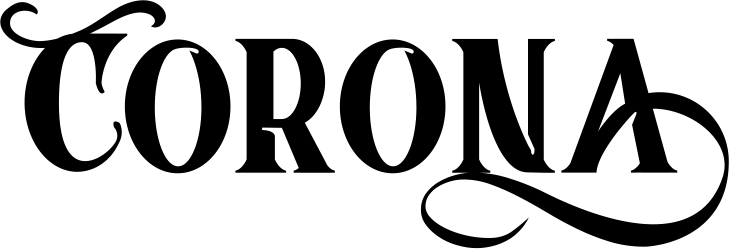
Las locuras del emperador Font
Designed byAhyrton Velasquez Aranda
Get a Mexican font to level up your text-based layouts. Las locuras del emperador comes with decorated letters and fits movies, posters, logos, and so forth. This case doesn’t comprise numbers. Download this font without a second thought and you will see how amazing it works. If you crave more of this category, visit our boundless website.
Based on Disney’s The emperor’s new groove